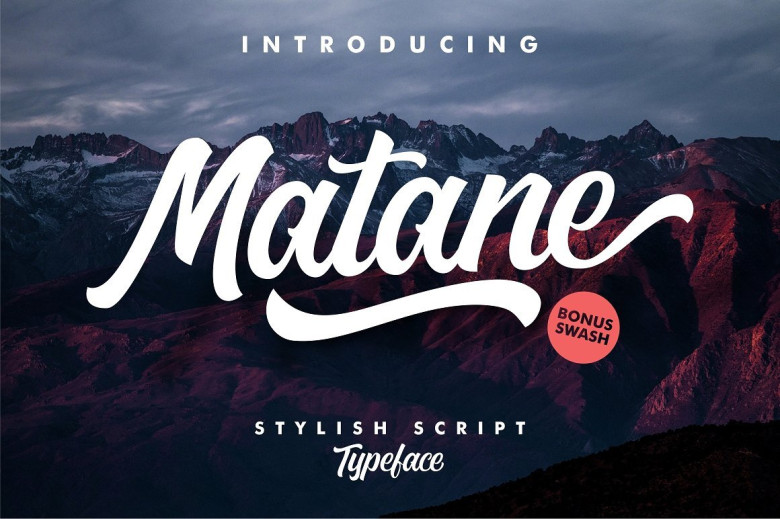
Matane Script Font
Hi there! Let me introduce Matane Font – a new stylish script font. Matane was designed by YdhraStudio. The Matane Typeface is a Stylish hand painting script. Matane Typeface is great for Apparel Brand, Logo Design, Lettering, Product Packaging, Printed Quotes, Invitations, Image overlays, Greeting cards, Text Headers, Book Cover, Painting design style, and other design project. Mix and match the alternate characters to add an attractive message to your design.